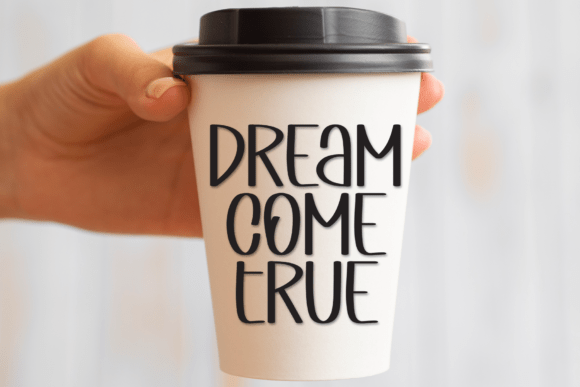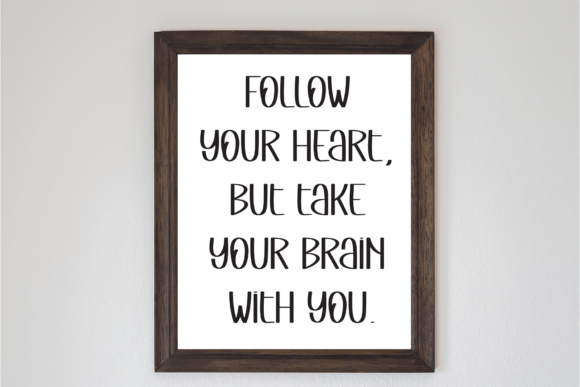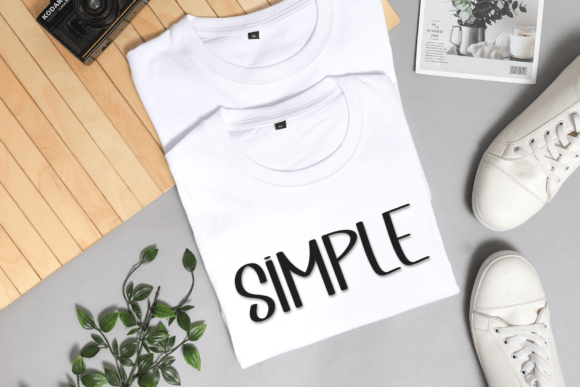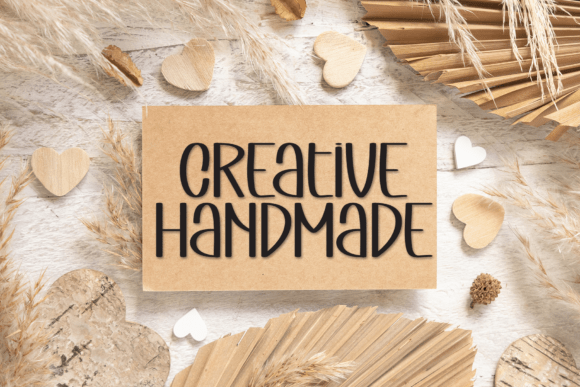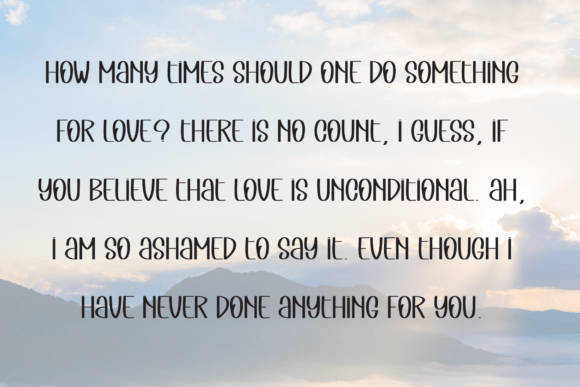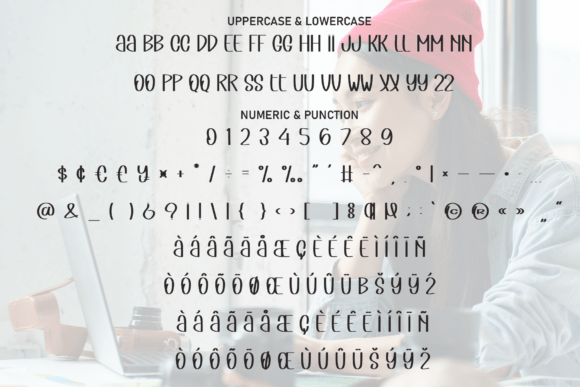
Introducing Forever Designer Font: The Perfect Blend of Clarity and Relaxed Style
In the world of design, fonts play a crucial role in conveying the tone and personality of a brand or project. For designers and crafters looking for a font that exudes a modern yet laid-back vibe, Forever Designer Font is an excellent choice. This neat and casual display font is designed to bring clarity and approachability to your designs, making it perfect for a wide range of applications.
Clean Lines and Friendly Letterforms
Forever Designer Font boasts clean lines and friendly letterforms that make it an ideal choice for headlines, posters, packaging, and branding. The font’s balanced structure and playful energy bring personality to any project without overwhelming the message. Whether you’re working on a modern and trendy design or a more traditional and classic look, Forever Designer Font is versatile enough to adapt to your needs.
Perfect for Designs that Call for Style and Readability
One of the standout features of Forever Designer Font is its ability to balance style and readability. In today’s design landscape, it’s not enough for a font to look good – it also needs to be easy to read. Forever Designer Font achieves this perfect balance, making it an excellent choice for designers and crafters who want their work to stand out without sacrificing legibility.
Use Cases for Forever Designer Font
So, what can you use Forever Designer Font for? The possibilities are endless! Here are some ideas to get you started:
- Headlines and Titles: Use Forever Designer Font to create eye-catching headlines and titles that grab attention and convey your brand’s personality.
- Posters and Flyers: Add a touch of modern style to your posters and flyers with Forever Designer Font, perfect for promoting events, products, or services.
- Packaging Design: Give your product packaging a fresh and modern look with Forever Designer Font, ideal for food, beverage, or lifestyle brands.
- Branding and Identity: Establish a strong brand identity with Forever Designer Font, suitable for logos, business cards, and other marketing materials.
Why Choose Forever Designer Font?
With so many fonts available, why choose Forever Designer Font? Here are just a few reasons why designers and crafters love this font:
- Unique Personality: Forever Designer Font has a distinct personality that sets it apart from other fonts, making it perfect for brands that want to stand out.
- High Readability: The font’s clean lines and balanced structure ensure that your text is easy to read, even at smaller sizes.
- Versatility: Forever Designer Font is versatile enough to work well in a variety of design contexts, from digital to print.
Tips for Using Forever Designer Font
To get the most out of Forever Designer Font, here are some tips to keep in mind:
- Experiment with Sizes: Forever Designer Font looks great at a range of sizes, from large headlines to smaller body text.
- Play with Colors: The font’s clean lines and friendly letterforms work well with a variety of colors and textures.
- Mix and Match: Don’t be afraid to combine Forever Designer Font with other fonts to create a unique and interesting design.
In conclusion, Forever Designer Font is a fantastic choice for designers and crafters looking for a modern yet laid-back font that balances style and readability. With its clean lines, friendly letterforms, and playful energy, this font is perfect for a wide range of design applications. Whether you’re working on a headline, poster, packaging, or branding project, Forever Designer Font is sure to bring a touch of personality and sophistication to your work.